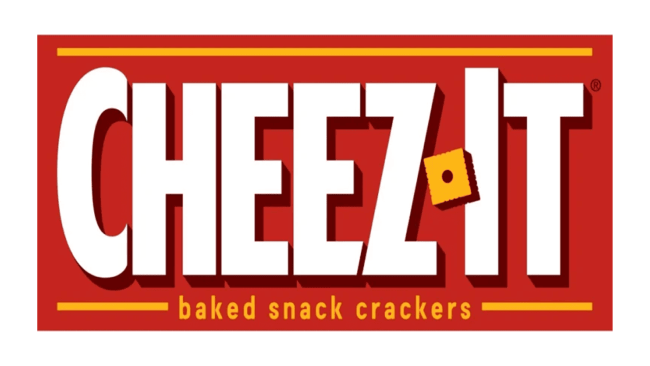
Cheez-It font — a strong, chunky, confident display face whose block-like letterforms echo the product’s own square geometry — is the typography of a cracker brand that has been making the same fundamentally correct decision since 1921: a small square of baked cheese-flavoured dough is a good thing, and the packaging should communicate that goodness with appropriate conviction. The freely available Cheez-It Font Alternative (personal use) brings this bold, snack-brand confidence to creative work.